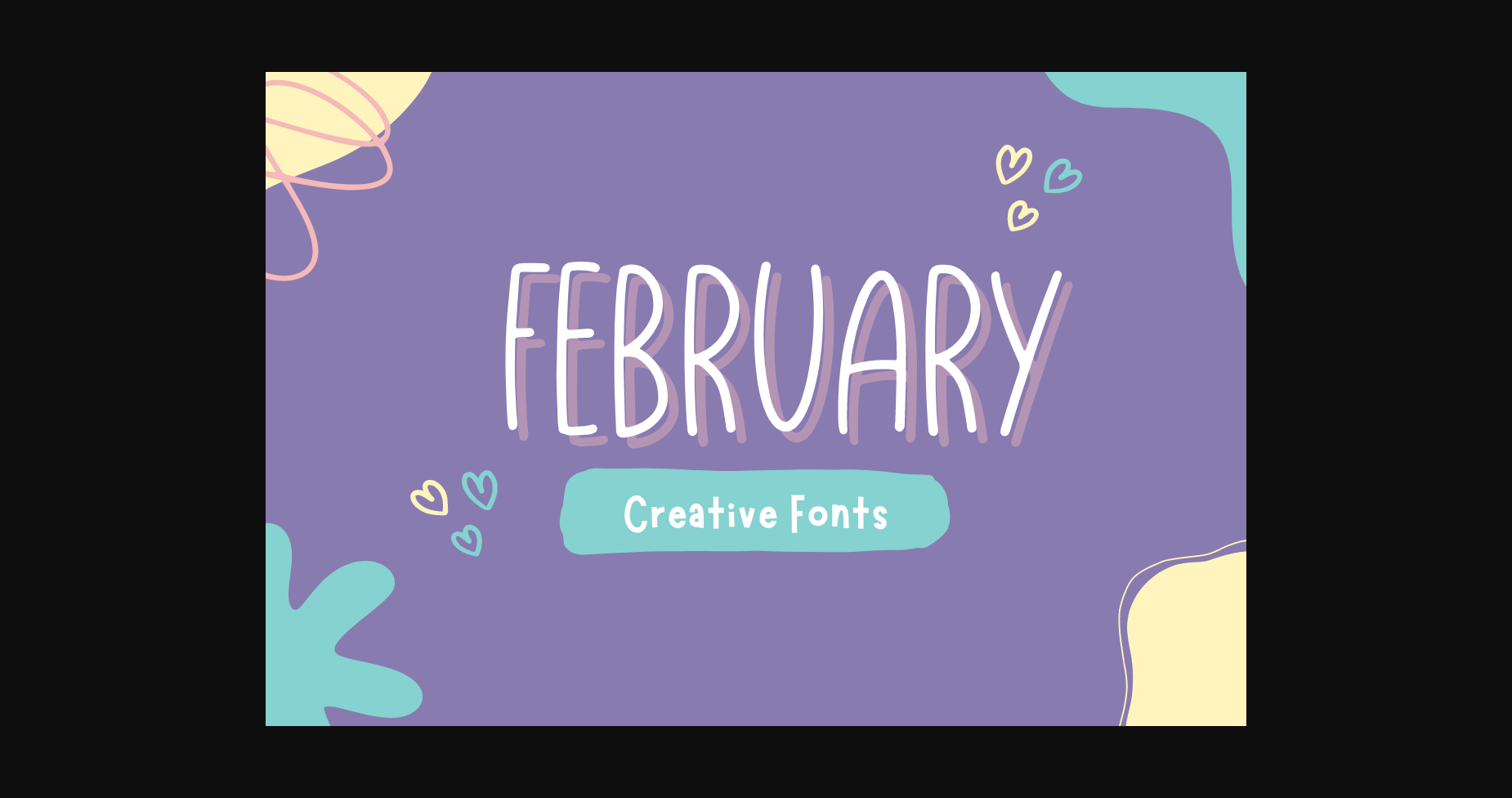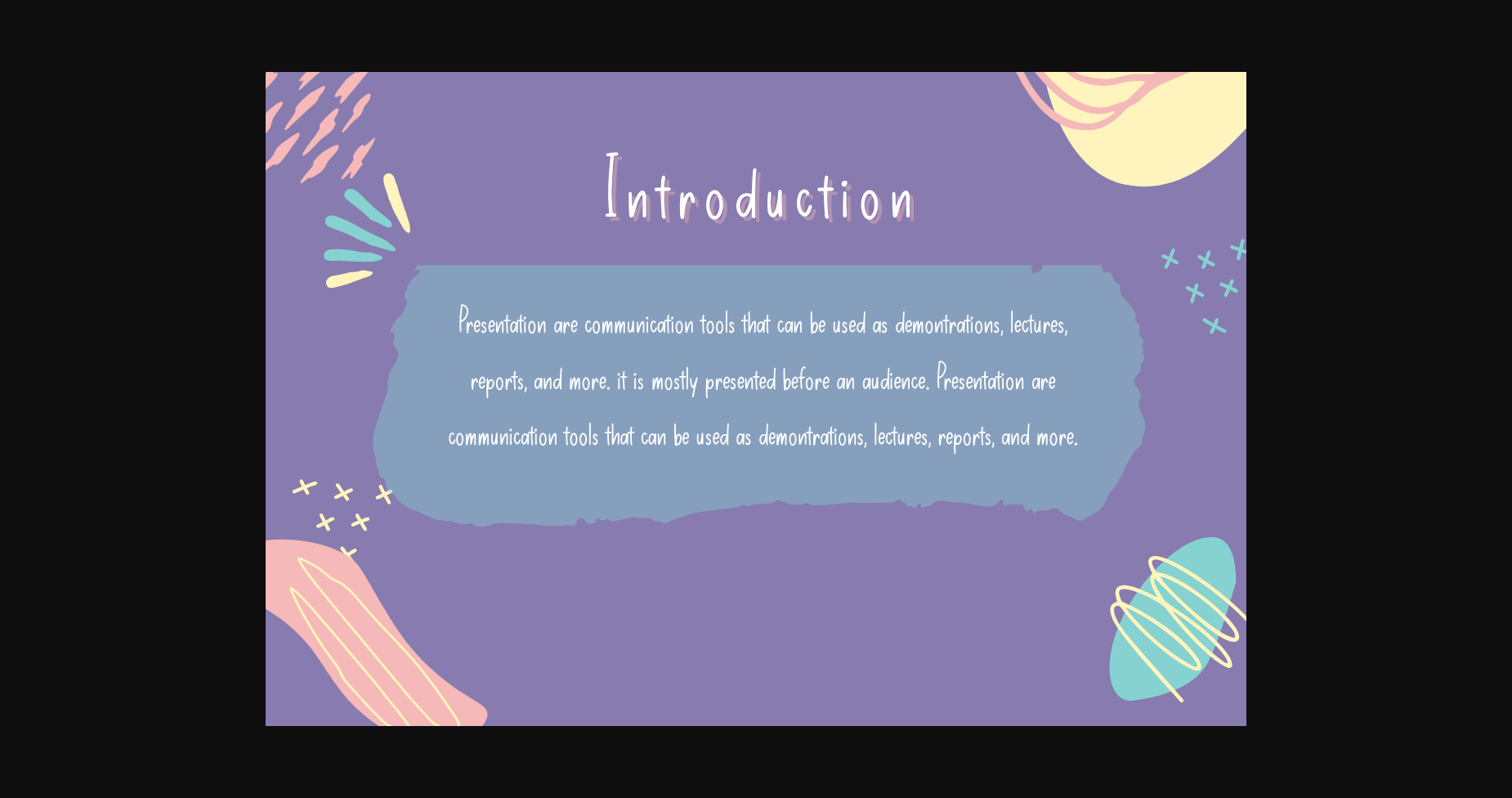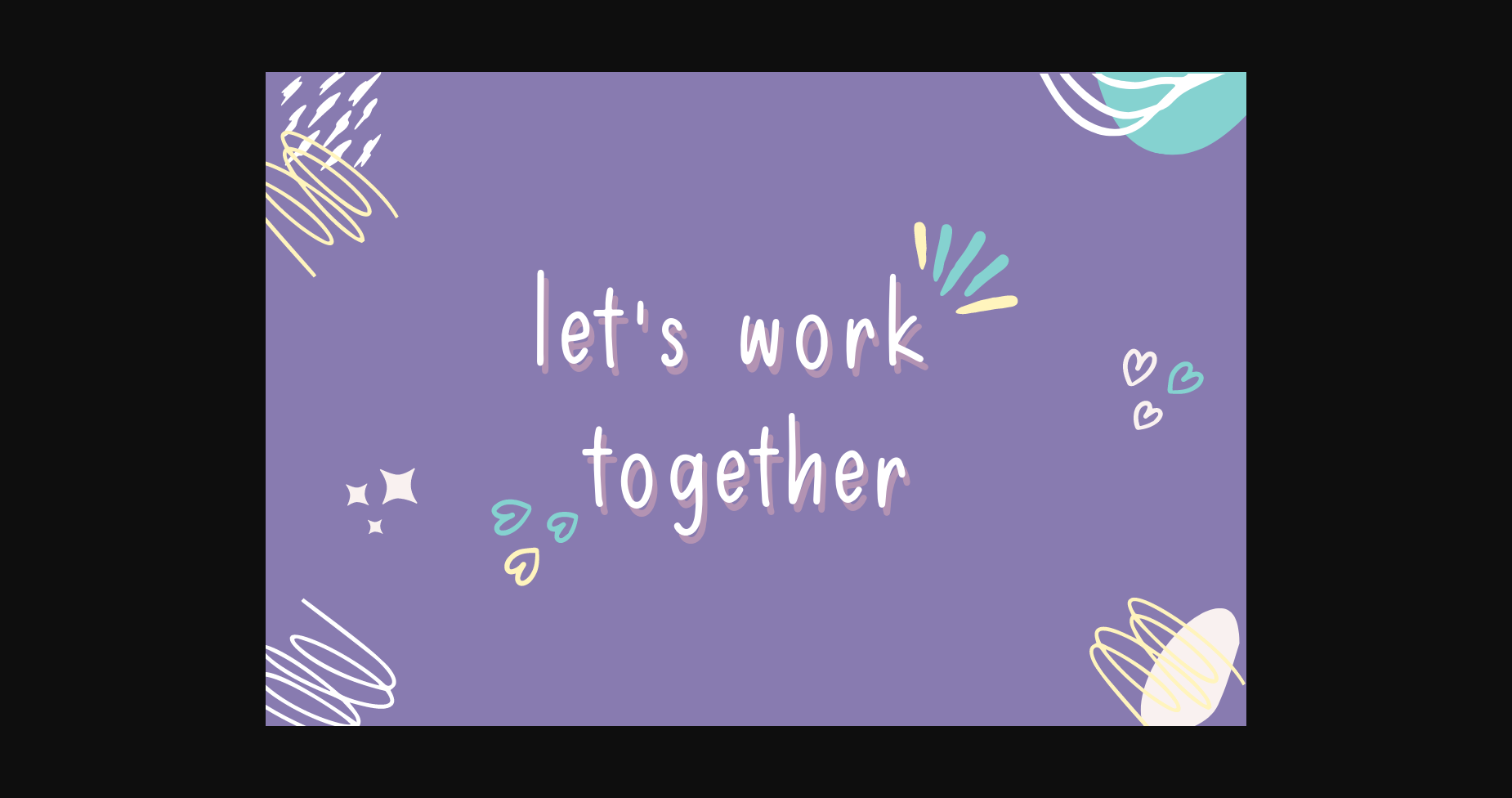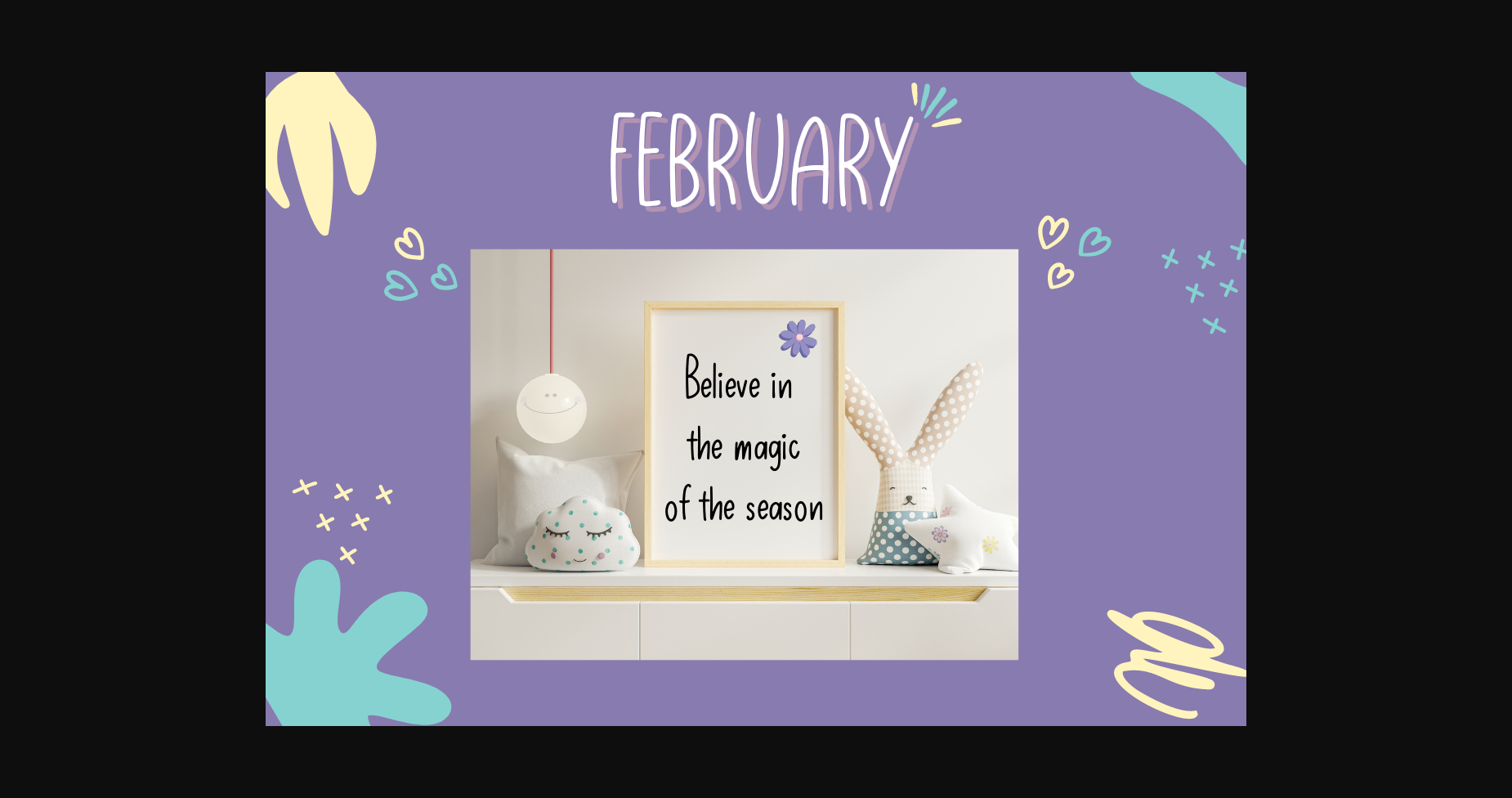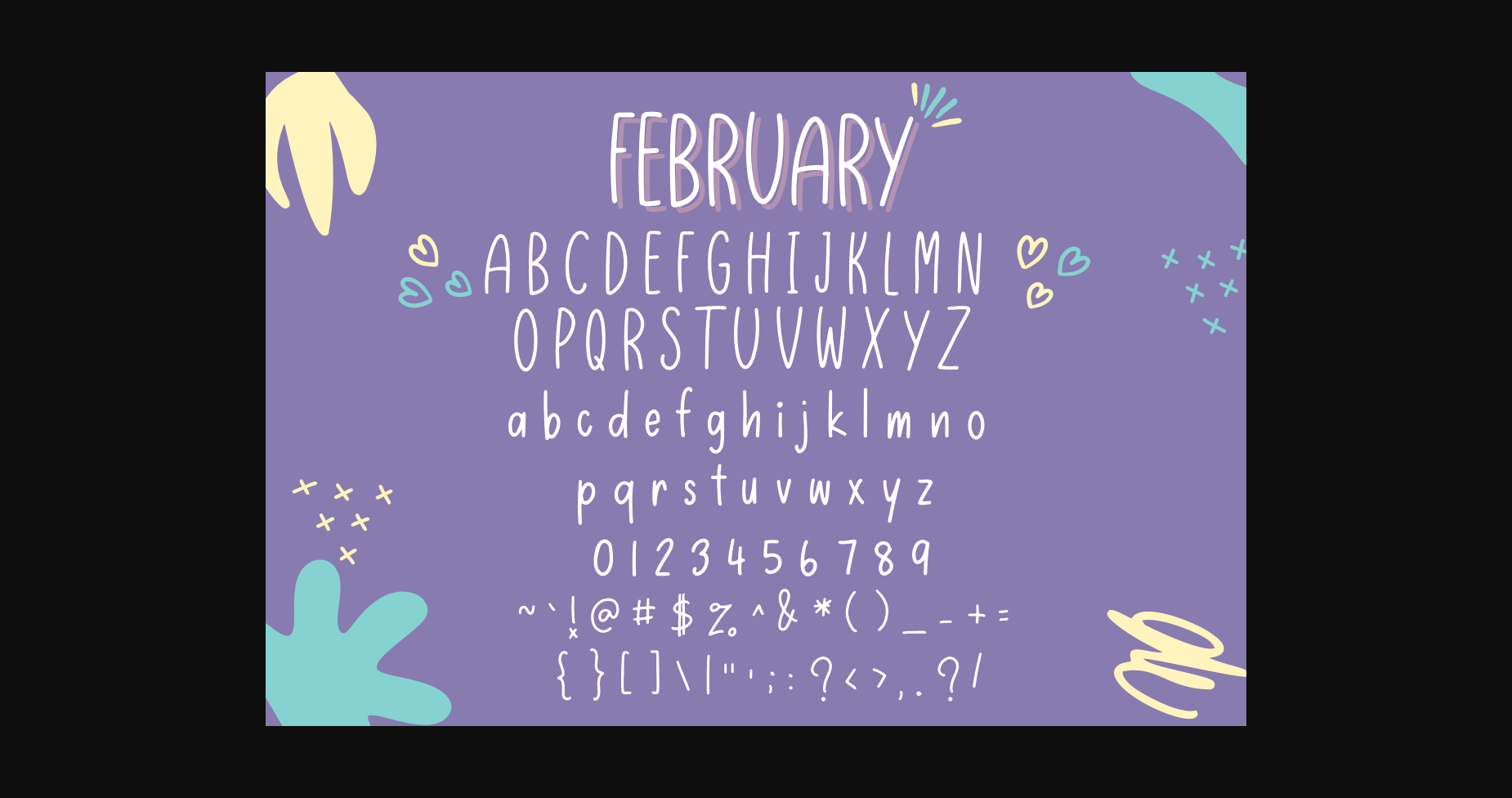
February Font
About February Font
February results out of a stunning pairing of a brush pen and pencil, making it look endearing and authentic. It will elevate a wide range of design projects to the highest level, be it branding, headings, wedding designs, invitations, signatures, logos, labels, and much more!